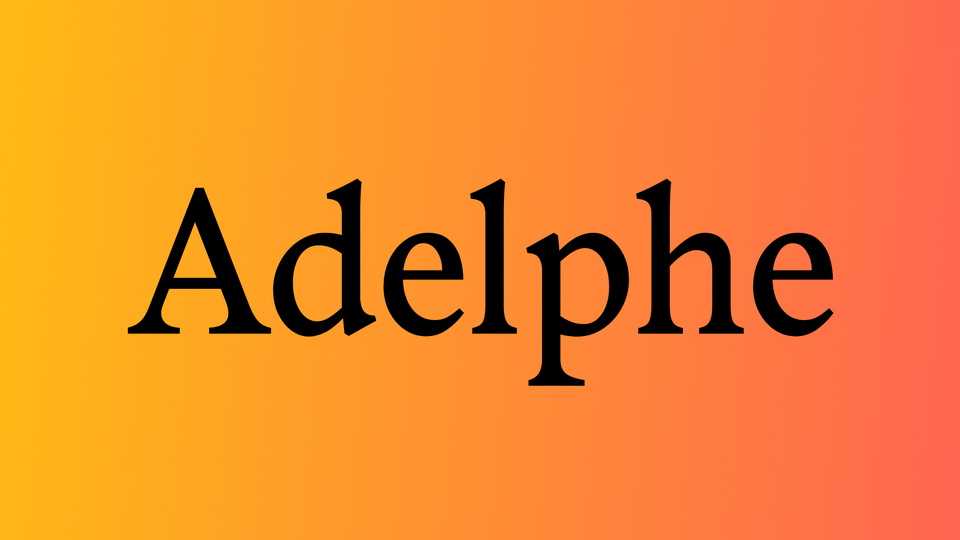
Download Adelphe font, a serif typeface whose main challenge is to offer several ways to practice inclusive writing on long text, in small size, and without altering typographic gray.
Designer: Eugénie Bidaut